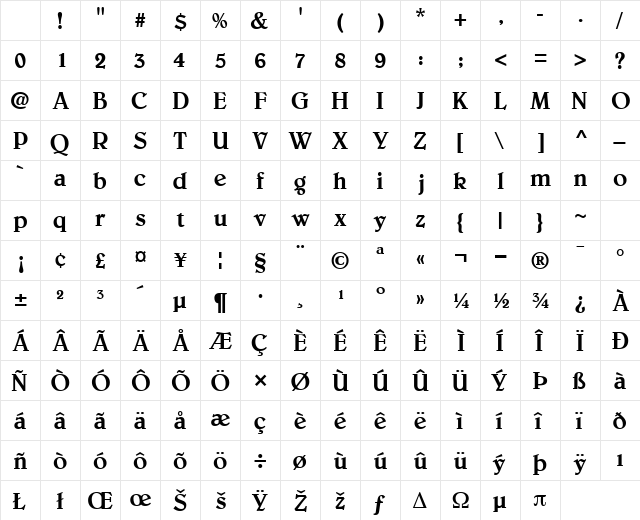
BarristerSSK Regular
BarristerSSK Family
Design Context for BarristerSSK
BarristerSSK is a composed and adaptable typeface that performs quietly and consistently across a wide range of design contexts.